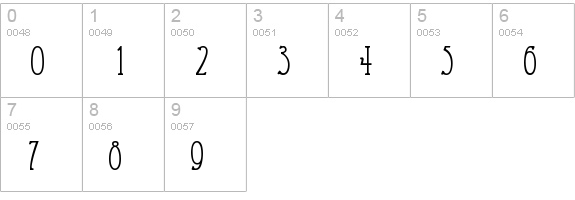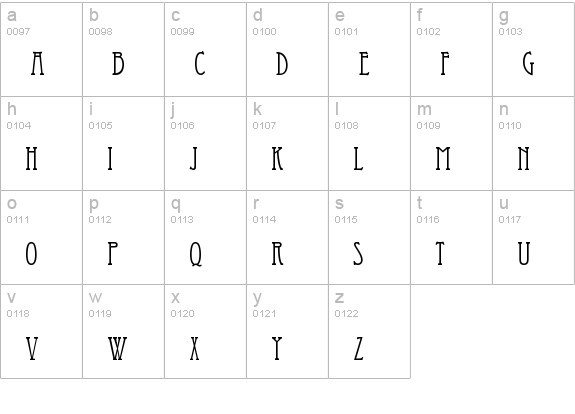
Artist-Modern font is a stunning and contemporary typeface that exudes creativity and sophistication. Its sleek lines and elegant curves make it perfect for a wide range of design projects, from branding to advertising to social media graphics. This versatile font is sure to make your text stand out and capture the attention of your audience. The best part about Artist-Modern font is that it is available for free download at FontsMarket.com. This means you can easily add this stylish and modern font to your collection without any cost. Don't miss out on the opportunity to enhance your designs with the unique charm of Artist-Modern font. Download it today and let your creativity soar!